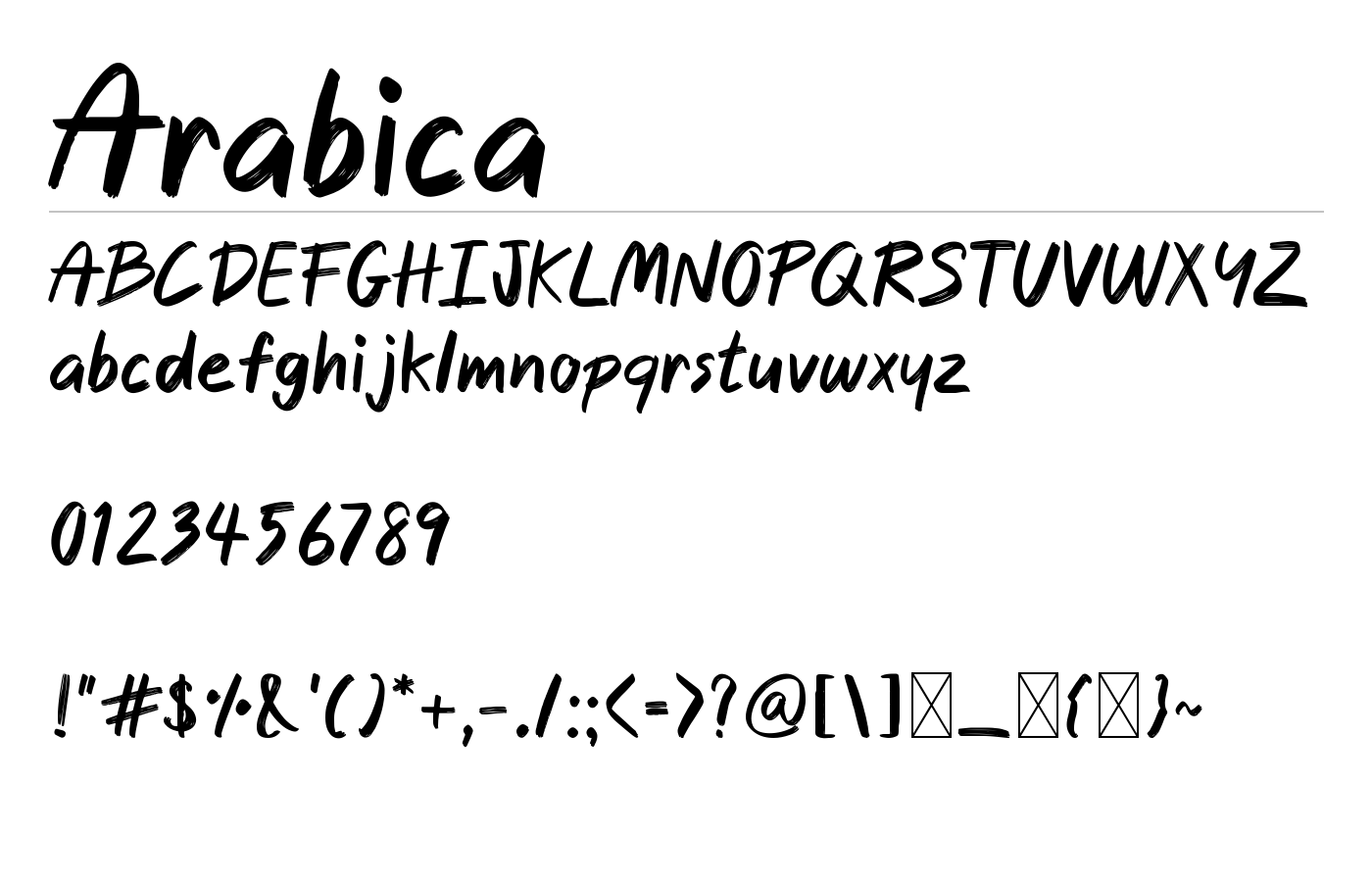
Arabica is a casual, handwritten sans serif font with a lively and energetic brushstroke style. Its medium weight and slightly condensed forms create a friendly and approachable feel, making it perfect for informal branding, invitations, and playful editorial content. This font shines in projects that want to convey warmth, creativity, and a personal touch.
Arabica Font